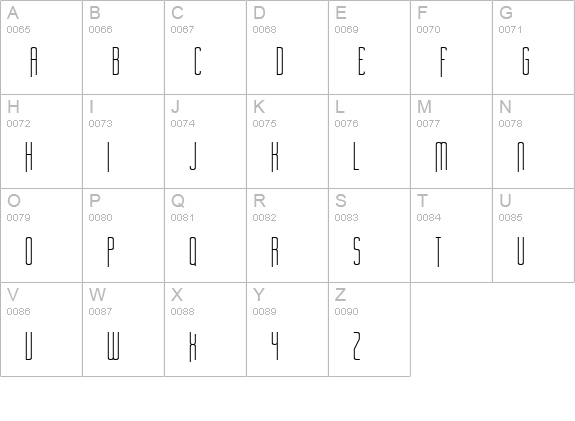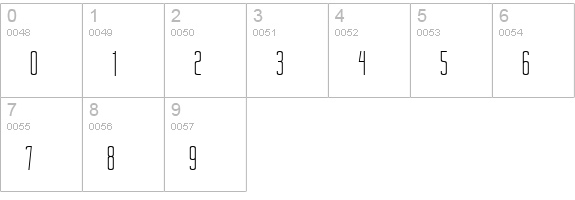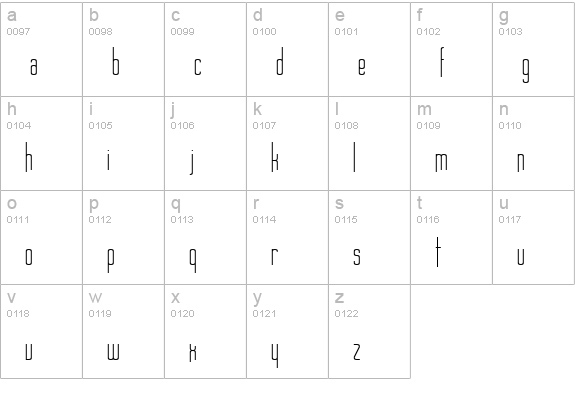
Long Cool Woman Font Details
Introducing Long Cool Woman font, a stylish and versatile typeface that exudes sophistication and charm. With its sleek lines and elegant design, this font is perfect for a wide range of projects, from branding to social media graphics. The Long Cool Woman font is free to download at FontsMarket.com, making it easily accessible for all your design needs. Elevate your creations with the timeless beauty of Long Cool Woman font today!